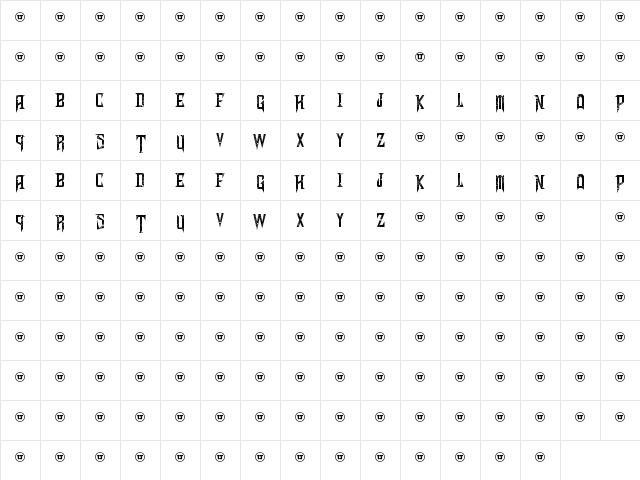
Shadows of Security Regular
| Foundry | LJ Design Studios |
| Designer | Luis Jaramillo |
Design Context for Shadows of Security Typeface
Shadows of Security is built around its visual character rather than neutral utility — its distinctive forms are designed to make an impression at display sizes.
Font Pairing: Pair with a clean neutral sans-serif for body copy to let Shadows of Security's character lead without overwhelming the composition.
Pro Tip: Treat Shadows of Security as the centrepiece of your typographic hierarchy. One strong heading set in a decorative face can carry an entire layout.